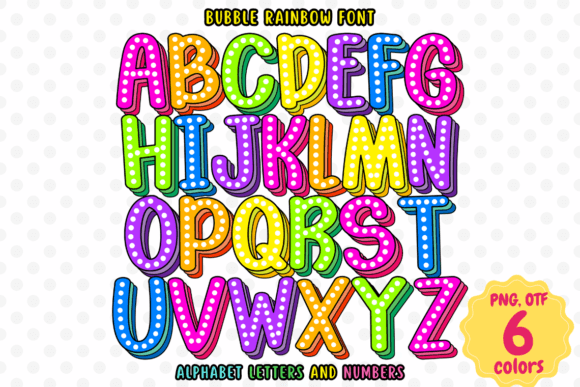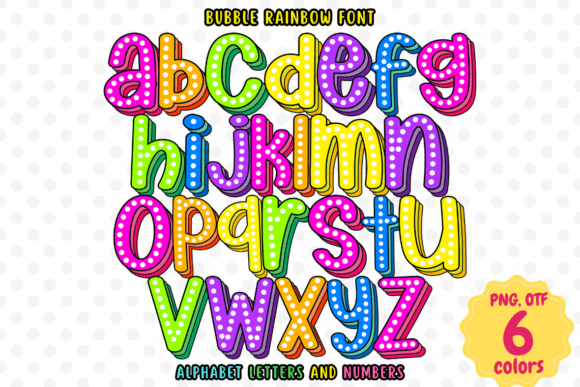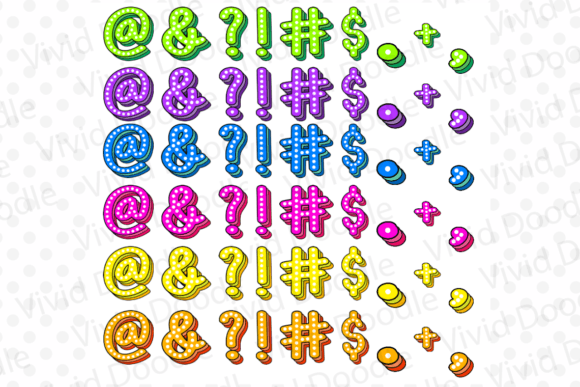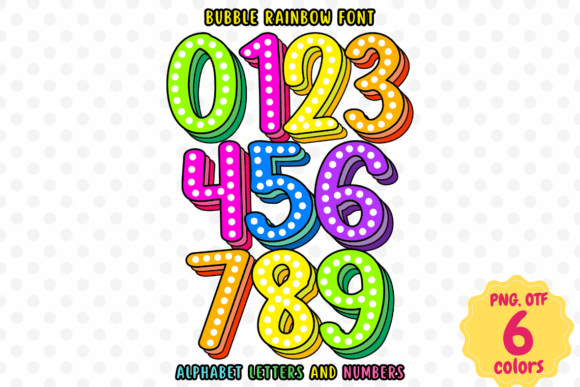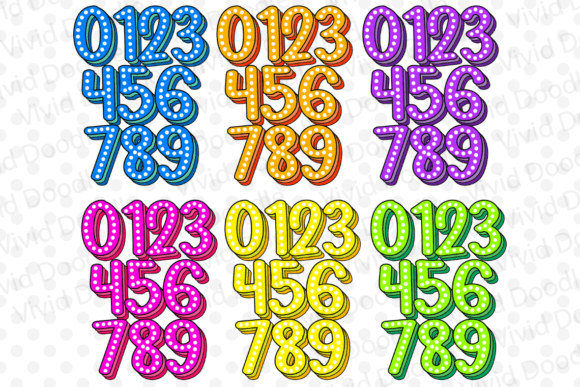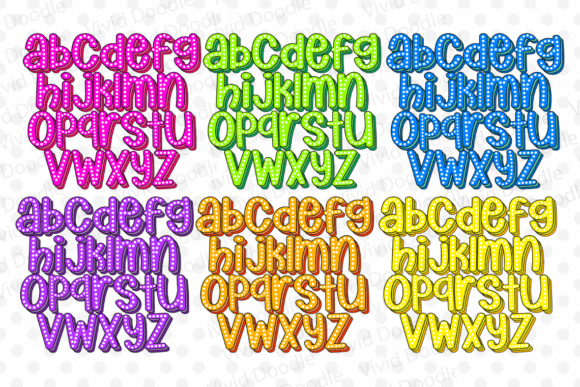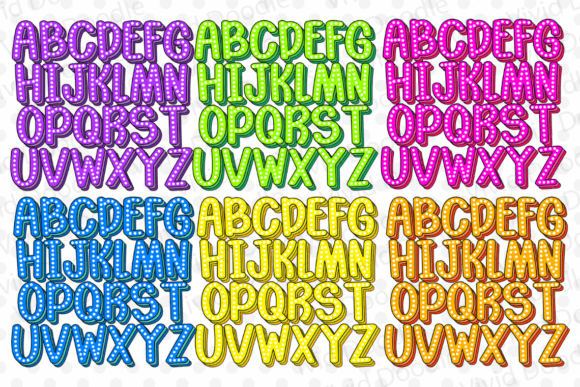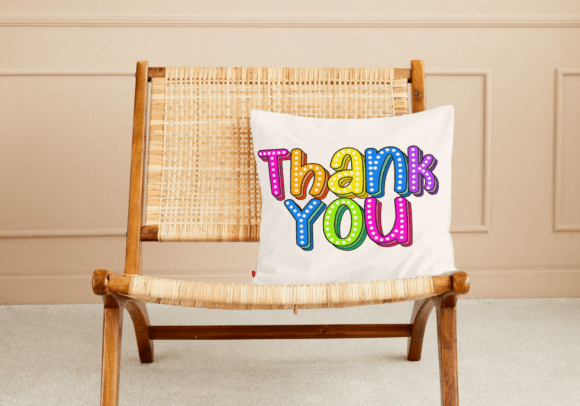
Bubble Rainbow Font
Elevate your design projects with the whimsical and vibrant “Bubble Rainbow”. This delightful typeface features playful bubble letters infused with the colors of the rainbow, making it perfect for adding a touch of fun and creativity to your work. Ideal for children’s books, party invitations, posters, greeting cards, and more, “Bubble Rainbow” brings a burst of color and joy to any project. Let your creativity shine with the “Bubble Rainbow” font and make your designs truly stand out!